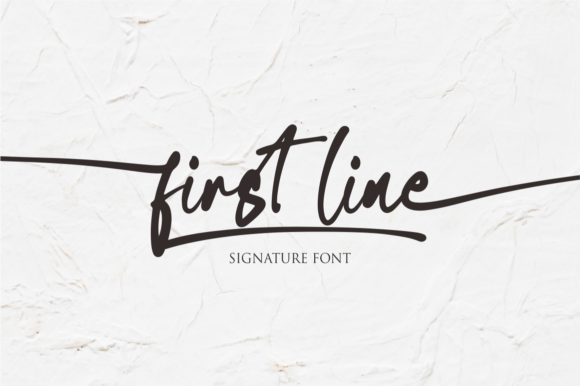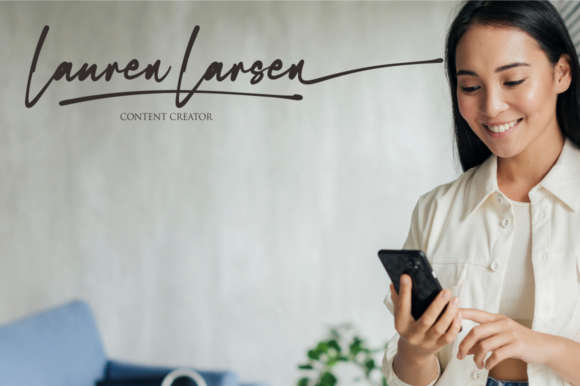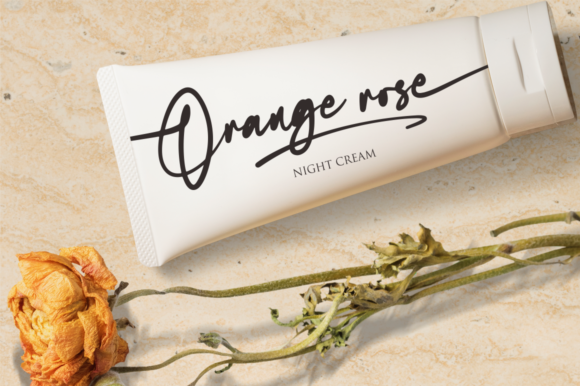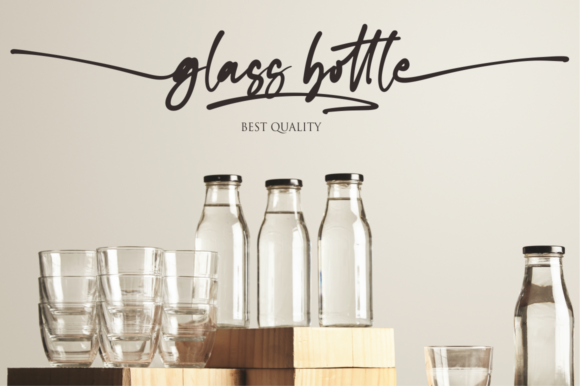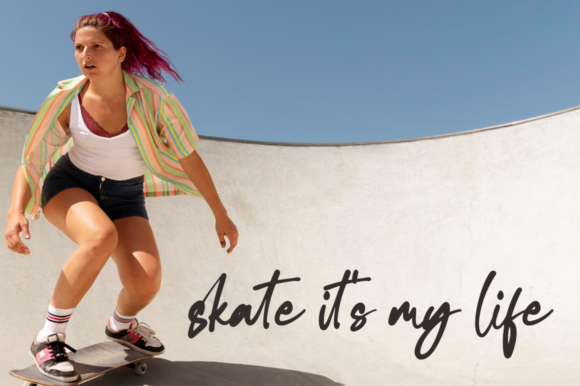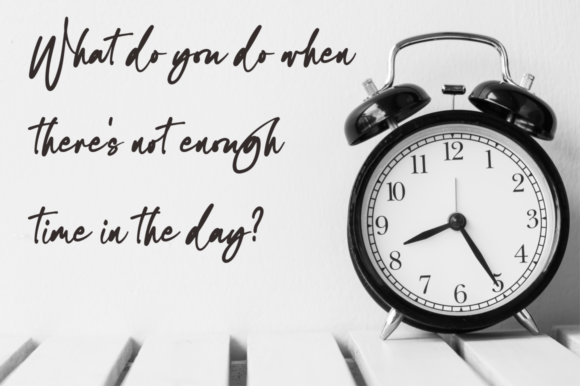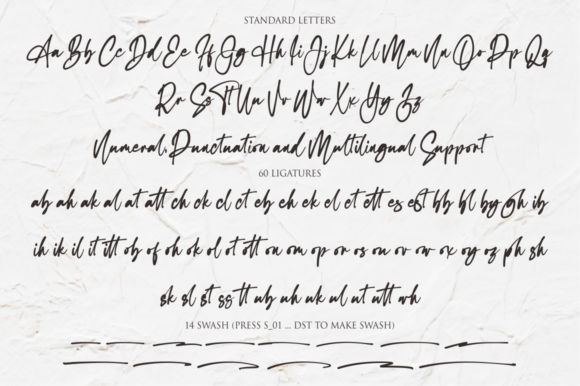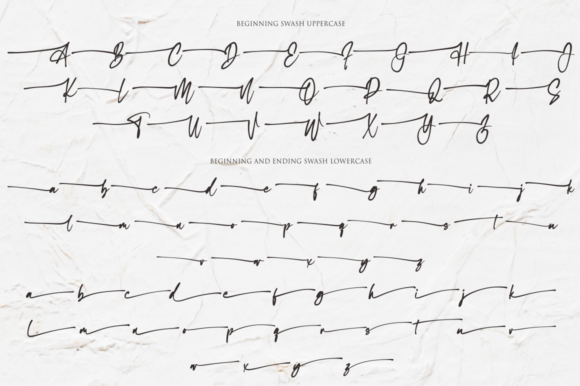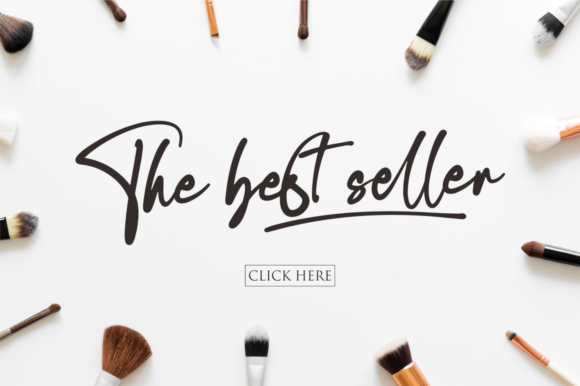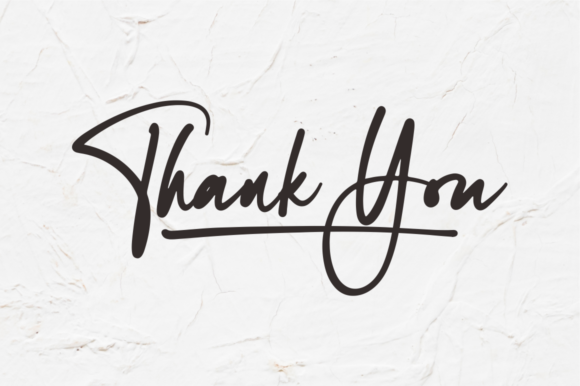
First Line Font
About First Line Font
First Line is a stylish and cool looking handwritten font. It is PUA encoded which means you can access all of the glyphs and swashes with ease! Add it confidently to your projects, and you will love the results.